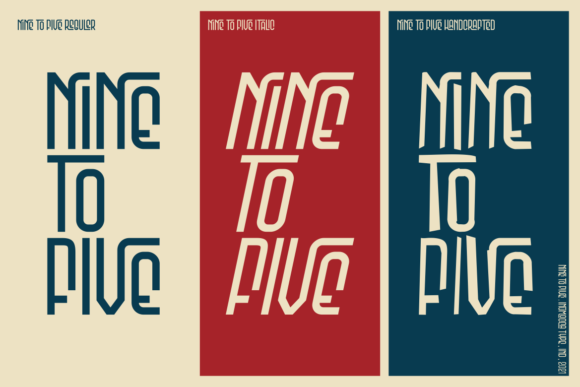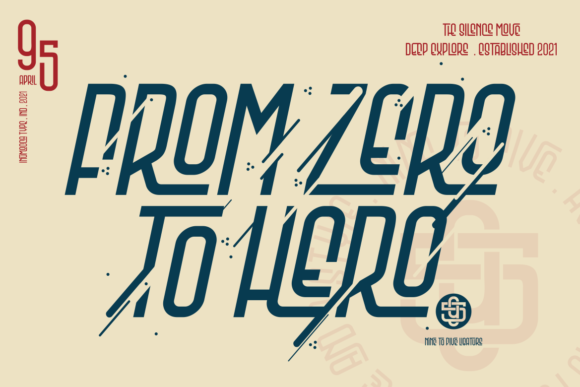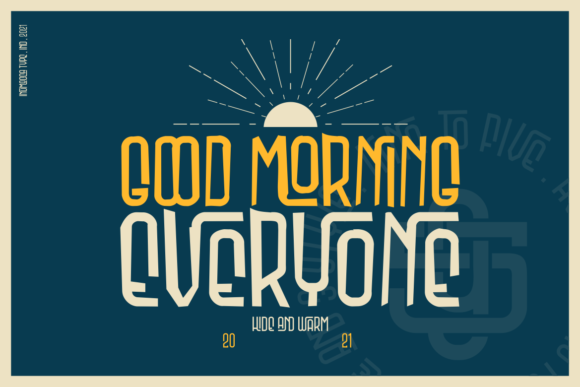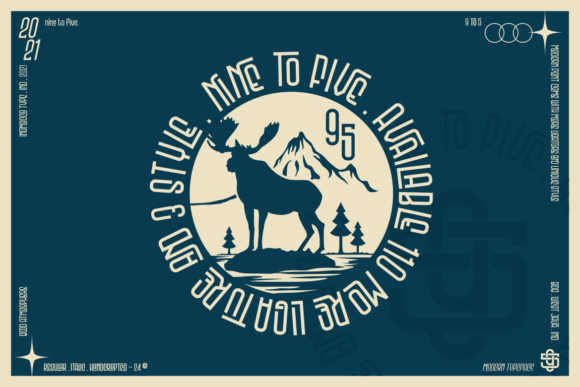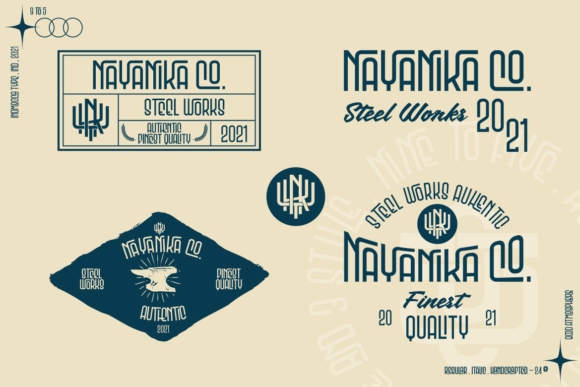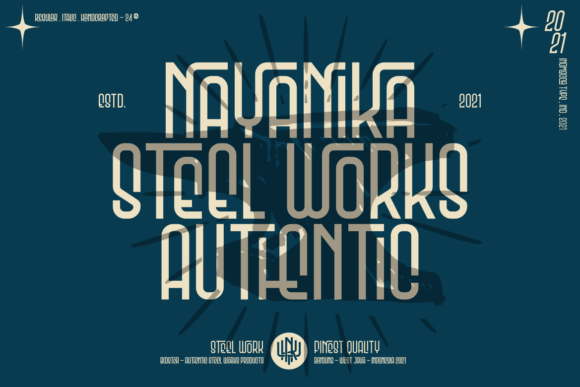
Introduction to Nine to Five Font
Do you remember that moment when you finally nailed the perfect design for your project? The one that makes you go ‘wow, this is it!’ and you can’t wait to share it with the world? For designers, that feeling is priceless. And what if we told you that the Nine to Five Font can elevate your creations to the next level, making them stand out in a crowded design landscape?
This fun and friendly display font is a game-changer for any creative project. With its simple yet strong visual effect, it instantly adds a touch of personality to your designs. Plus, being PUA encoded, you can easily access all glyphs and swashes, giving you endless possibilities to customize and personalize your work.
Whether you’re working on a high-quality design resource or just need a free download for a quick project, the Nine to Five Font is a valuable addition to your design arsenal. With a transparent background and endless customization options, it’s the perfect tool to take your designs to the next level.
Key Features of Nine to Five Font
- High-quality design resource suitable for creative projects, including business cards, logos, and brochures.
- Includes a transparent background, allowing for seamless integration into various design elements.
- Features a modern, professional design with a clean and minimalist aesthetic.
- Supports various font sizes and resolutions, making it suitable for both print and digital applications.
Honest Review: Nine to Five Font
I recently stumbled upon the Nine to Five Font, a free design resource that I’m excited to share with you. As a designer, I’m always on the lookout for high-quality fonts that can elevate my creative projects.
Here’s what I like about the Nine to Five Font:
- ✨ Versatility: The font is suitable for a wide range of applications, from corporate reports to social media graphics.
- ✨ Legibility: The font is easy to read, even at smaller font sizes.
- ✨ Unique style: The font has a distinctive, modern feel that sets it apart from more generic fonts.
- ⚠️ Limited language support: The font may not be suitable for projects that require support for non-English languages.
- ⚠️ No transparent background: The font doesn’t have a transparent background, which may limit its use in certain design applications.
Overall, I’m impressed with the Nine to Five Font. While it’s not perfect, its high quality and unique style make it a valuable addition to any designer’s toolkit. I recommend it for any creative project that requires a modern, professional look.
Use the Nine to Five Font in combination with other design elements to create a cohesive and visually appealing design. Experiment with different font sizes and styles to add depth and interest to your design.
The Nine to Five Font is ideal for a variety of creative projects, including business cards, brochures, and social media graphics. Its high quality design and transparent background make it perfect for creating professional-looking designs with ease.